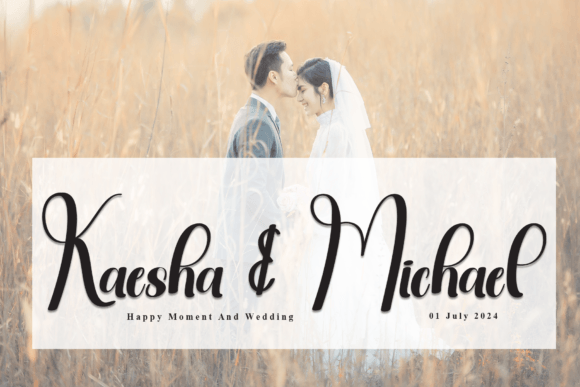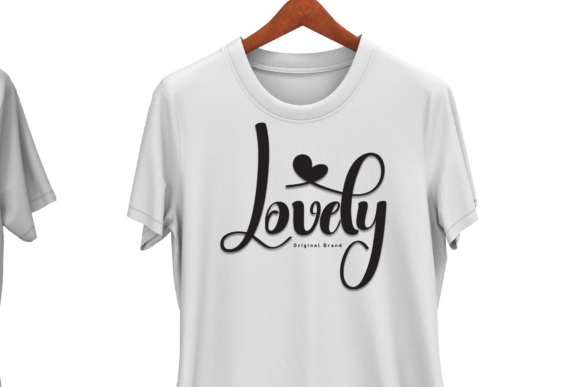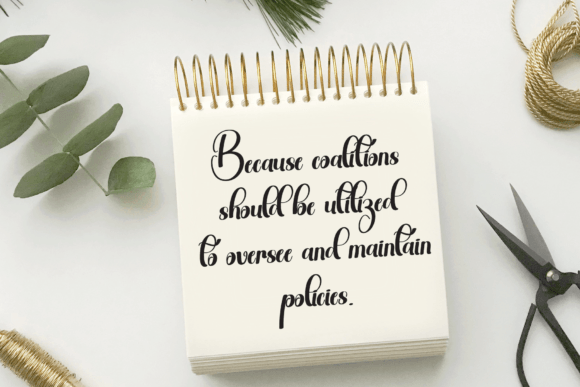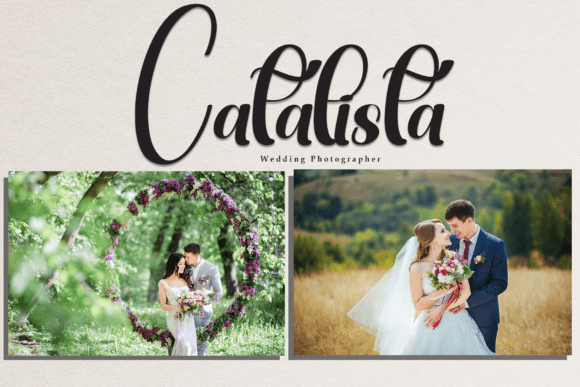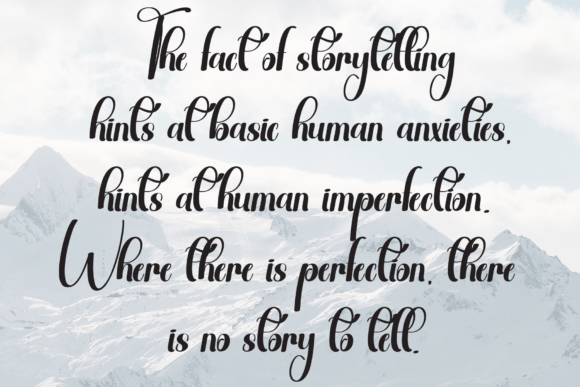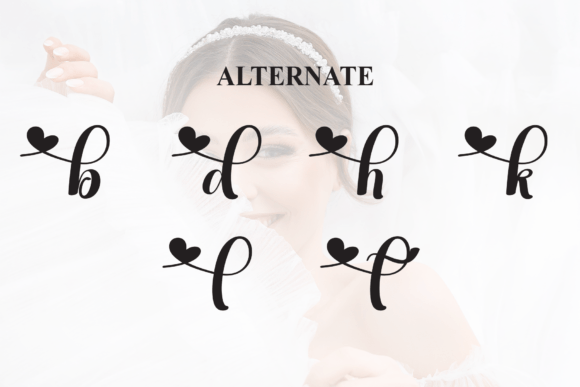
Bride Font: The Ultimate Typeface for Whimsical Designs
Are you looking for a font that embodies the essence of cuteness and playfulness? Look no further than the Bride Font, a charming and amicable hand-sketched typeface that exudes all things adorable and jovial. This delightful font is perfect for crafting wedding invites, heartfelt cards, or any design that craves a dash of light-hearted fun.
A Unique Blend of Effervescence and Sophistication
The Bride Font presents a unique blend of effervescence and sophistication, making it an ideal choice for designers and crafters who want to add a touch of whimsy to their creations. With its hand-sketched design, this font boasts a distinctive and personalized feel that sets it apart from more traditional typefaces. Whether you’re working on a wedding invitation, a greeting card, or a logo design, the Bride Font is sure to bring a smile to your audience’s faces.
Ideal for Wedding Invites and Cards
Wedding invites and cards are a perfect match for the Bride Font. The font’s playful and charming design makes it an excellent choice for couples who want to set the tone for a joyful and celebratory wedding. With the Bride Font, you can create beautiful and unique wedding invites that reflect your personality and style. Additionally, the font’s versatility makes it suitable for various design projects, including:
- Wedding stationery, such as save-the-date cards and RSVP cards
- Greeting cards for birthdays, anniversaries, and other special occasions
- Logo designs for businesses, events, or personal projects
- Social media graphics, such as Facebook posts and Instagram stories
Key Features of the Bride Font
The Bride Font boasts several key features that make it an excellent choice for designers and crafters:
- Hand-sketched design with a unique and personalized feel
- Playful and charming aesthetic that’s perfect for whimsical designs
- Versatile and adaptable for various design projects
- Effervescent and sophisticated blend of styles
- Easy to read and understand, making it perfect for body text and headlines
Tips for Using the Bride Font
To get the most out of the Bride Font, here are some tips to keep in mind:
- Pair the Bride Font with other fonts to create a unique and visually appealing design
- Use the font’s playful and charming design to add a touch of personality to your project
- Don’t be afraid to get creative and try out new and innovative design ideas
In conclusion, the Bride Font is a charming and amicable hand-sketched typeface that’s perfect for designers and crafters who want to add a touch of whimsy to their creations. With its unique blend of effervescence and sophistication, this font is ideal for crafting adorable wedding invites, heartfelt cards, and other designs that crave a dash of light-hearted fun. So why wait? Embrace a fun-filled design journey with the Bride Font and discover a world of creative possibilities!
Get Ready to Add a Dash of Charisma and Charm to Your Designs!
Whether you’re a seasoned designer or a crafty DIY enthusiast, the Bride Font is sure to bring a smile to your face and inspire your creativity. So go ahead, get creative, and let the Bride Font guide you on a fun-filled design journey!